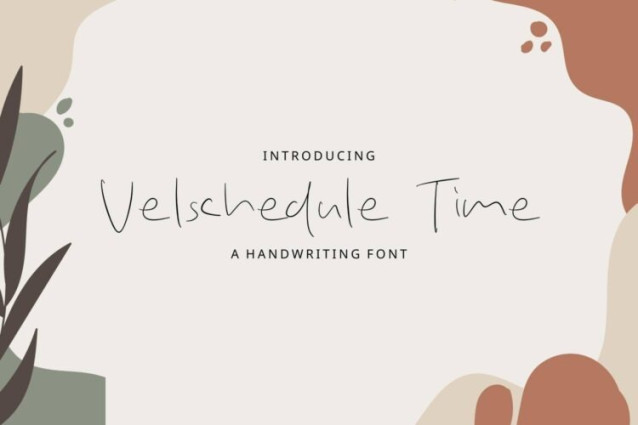
Velschedule Time Font
Velschedule Time Font is a simple and friendly handwritten font. Its natural and unique style makes it incredibly fitting to a large pool of designs. The only limit is your imagination!